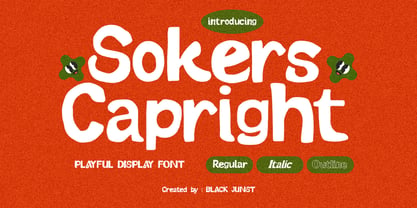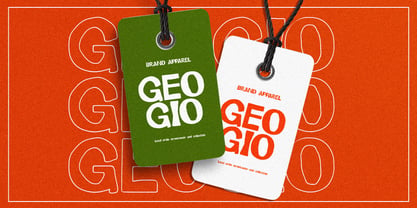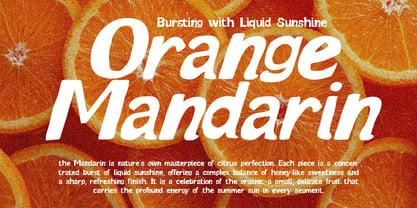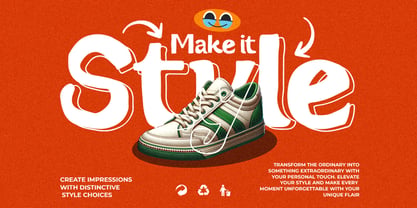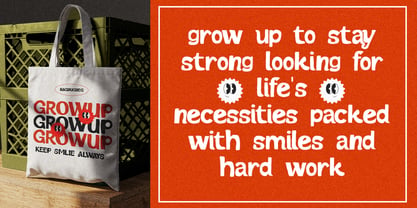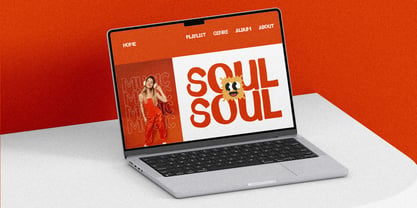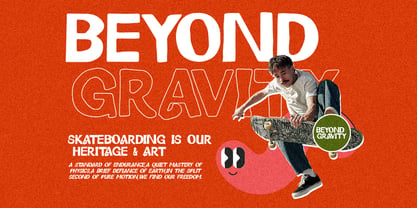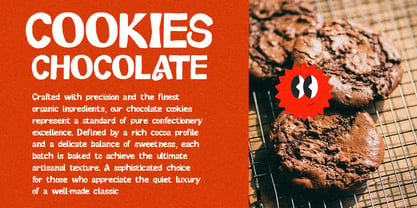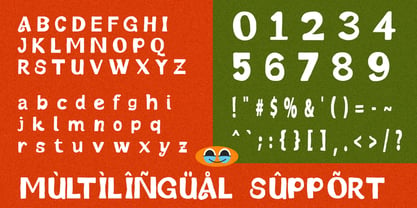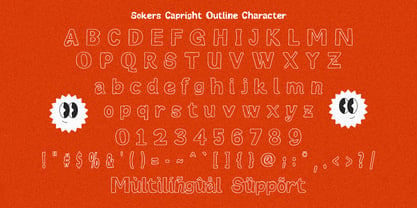
Sokers Capright
The Sokers Capright Font Family was designed by Maulana Semar and published by Black Junst. Sokers Capright contains 3 styles and family package options. More about this family
Sokers Capright is a playful display font designed to infuse bold personality and fun energy into your creative projects. Featuring chunky, organic letterforms with slightly irregular shapes, this typeface offers a friendly, hand-crafted feel that instantly captures attention.
Ideal for branding, packaging, posters, social media, and children-themed designs, Sokers Capright seamlessly blends retro charm with modern playfulness. The font is available in multiple styles, including Regular, Italic, and Outline, providing the flexibility to create dynamic and eye-catching compositions.
Whether you're designing snack packaging, streetwear branding, or vibrant editorial layouts, this font adds a cheerful and expressive tone to your typography.
features include:
- Uppercase & Lowercase
- Stylish Alternates & Ligatures
- Regular, Italic, and Outline
- Multilingual Support